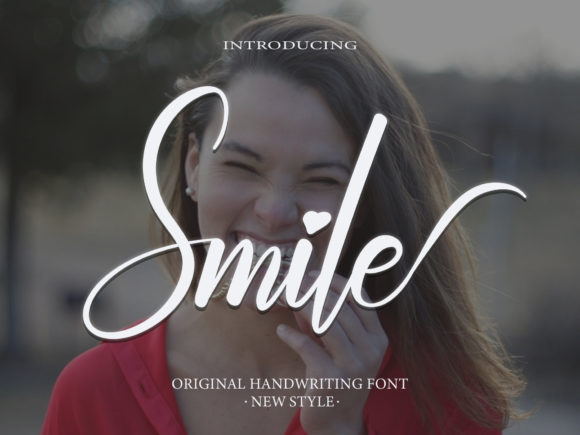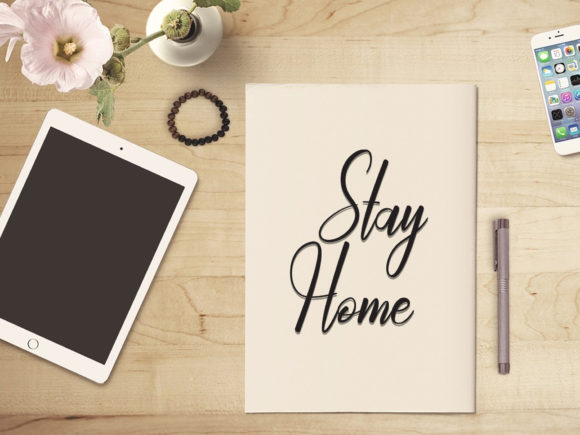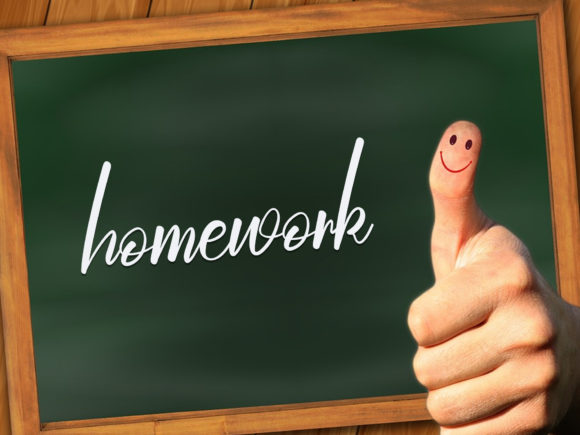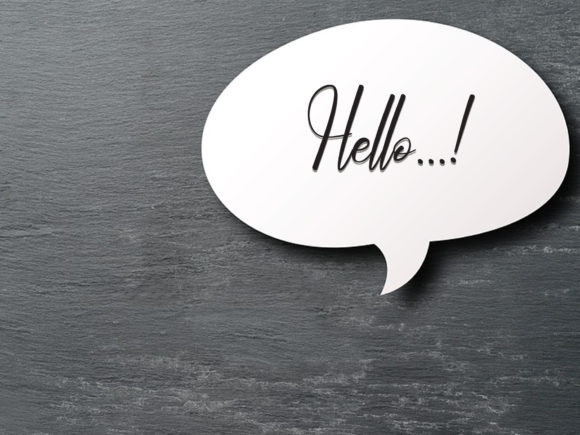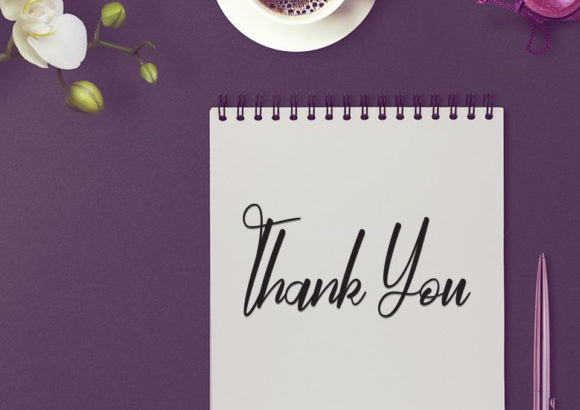
Smile Font
About Smile Font
Smile is a beautiful handwritten font that is carefully crafted to produce cool and gorgeous designs. This font can be used to write letters, invitations, food products and more.